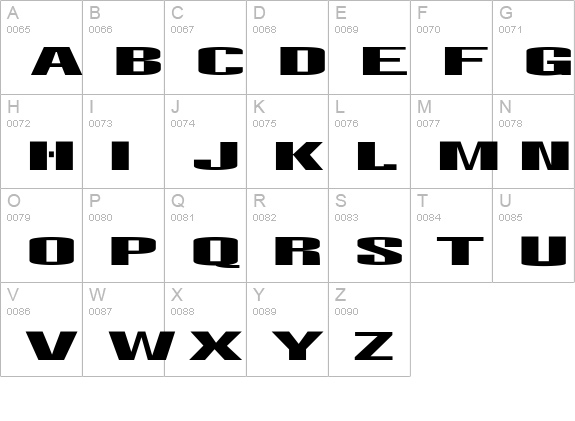
LightsOut Font Details
LightsOut font is a captivating and modern typeface that brings a touch of sophistication and elegance to any design project. With its sleek and stylish letterforms, this font is perfect for adding a contemporary flair to logos, branding materials, websites, and more. The clean lines and sharp angles of LightsOut font make it stand out from the crowd and grab the attention of viewers. Best of all, LightsOut font is available for free download at FontsMarket.com. This means you can easily access this stunning font and incorporate it into your creative work without any cost. Whether you're a professional designer looking to enhance your projects or simply a typography enthusiast seeking a new favorite font, LightsOut font is a fantastic choice that won't break the bank. Download it today and elevate your designs with this versatile and eye-catching typeface.